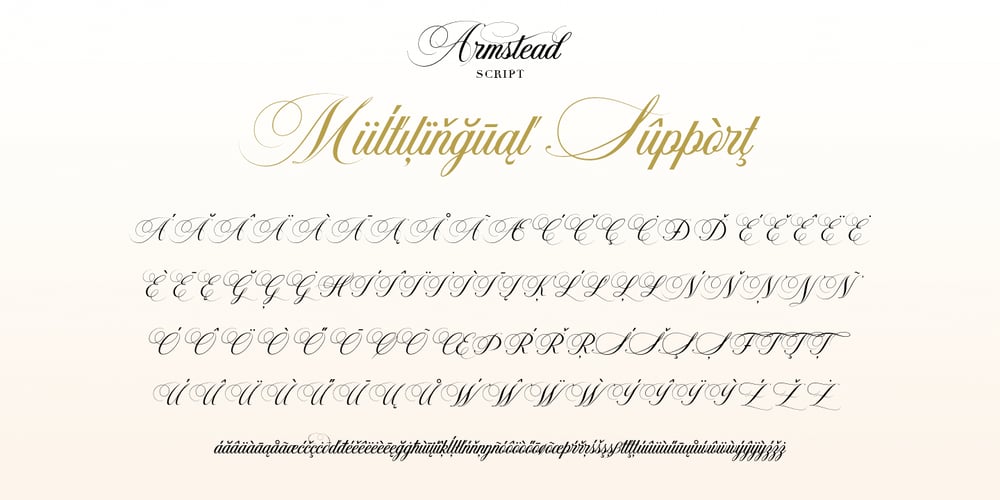
Armstead Font Family was designed by Pavel Larin and published by Larin Type Co. Armstead contains 1 styles and family package options. Inspired by classic calligraphy, Armstead is an elegant and sophisticated handwritten font with a classic charm. All lowercase have 8 – 9 variants, total of 203 alternates, 7 ligatures, 20 swash of which 10 are final, and there are old roman numerals from 0 to 12. This font is perfect for your wedding invitation, greeting card, certificate, branding, magazine, book cover and much more and the alternates will help you to make your design unique. Thank you!